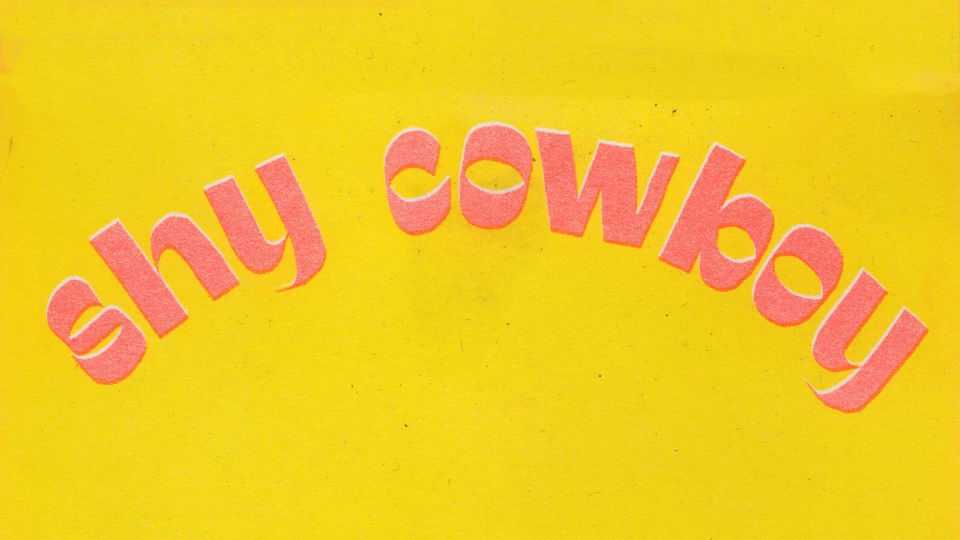
Download Shy Cowboy font, a reverse-contrast lowercase typeface with funny and playful look. Shy Cowboy is perfect for comic books, games, kids products, posters, prints and other fun projects.
Designer: Lara Dautun